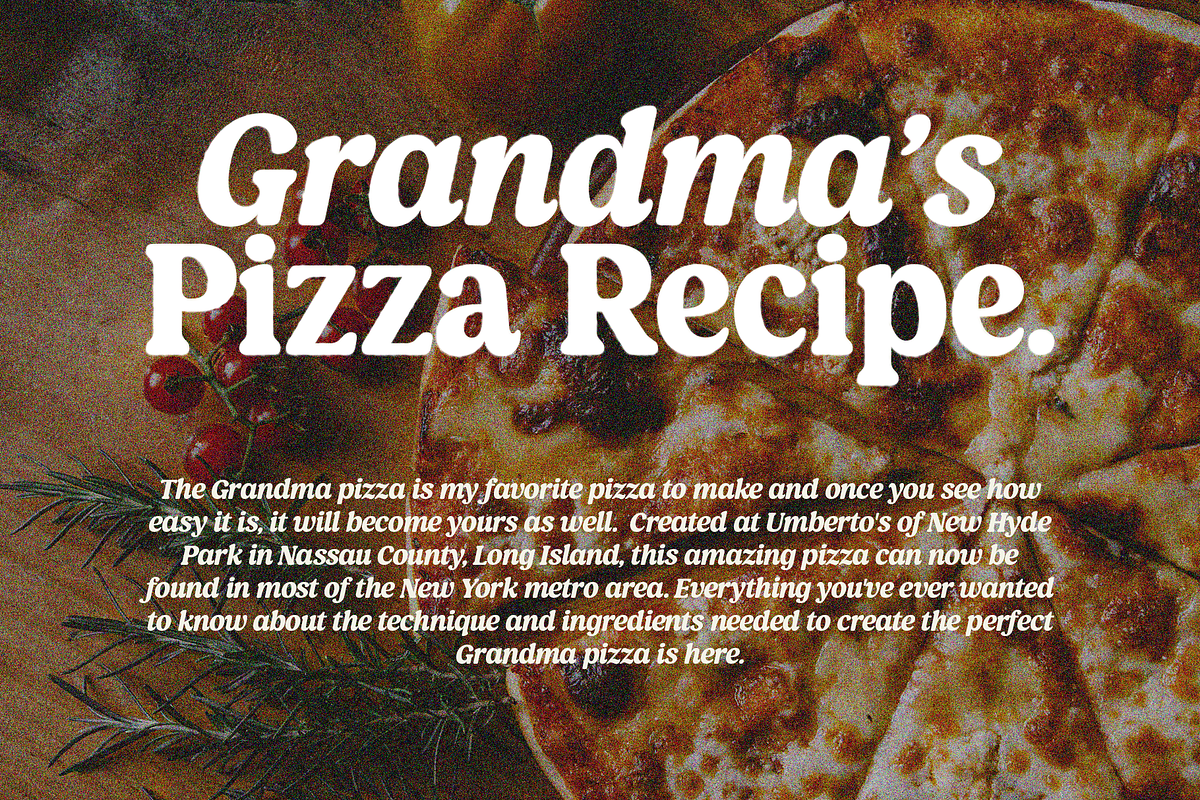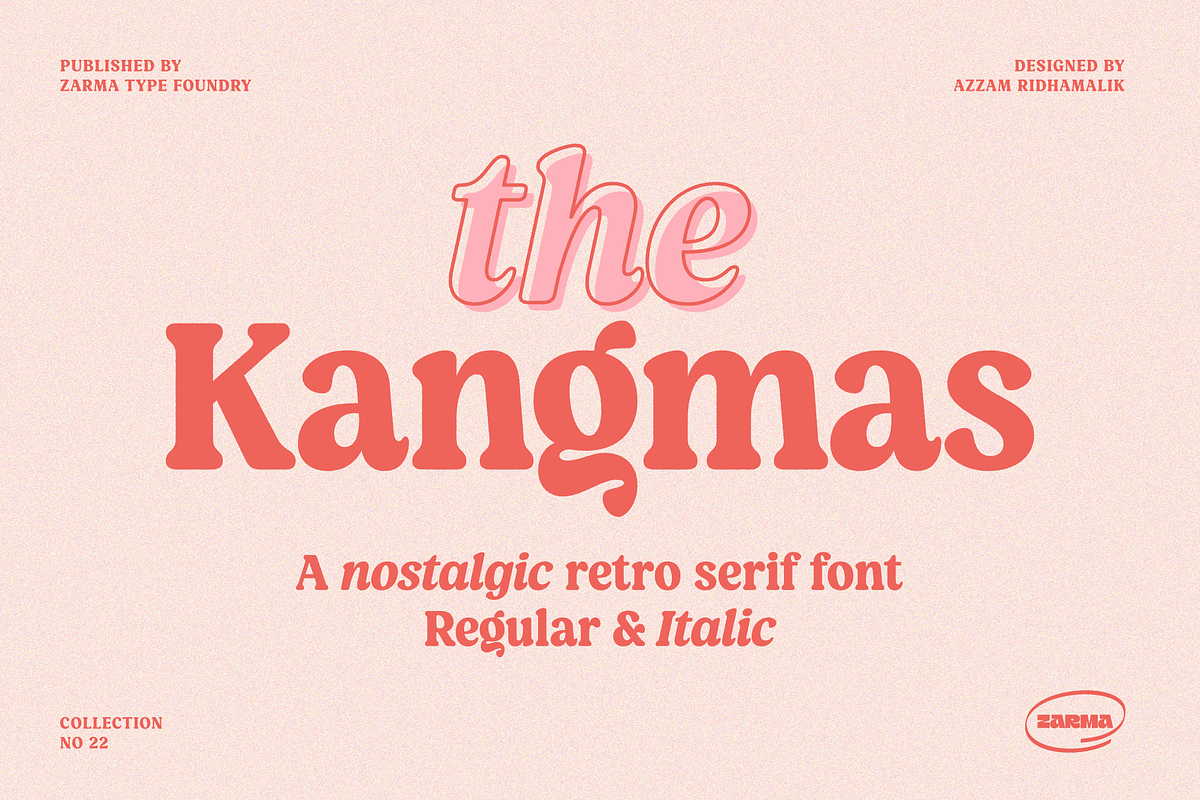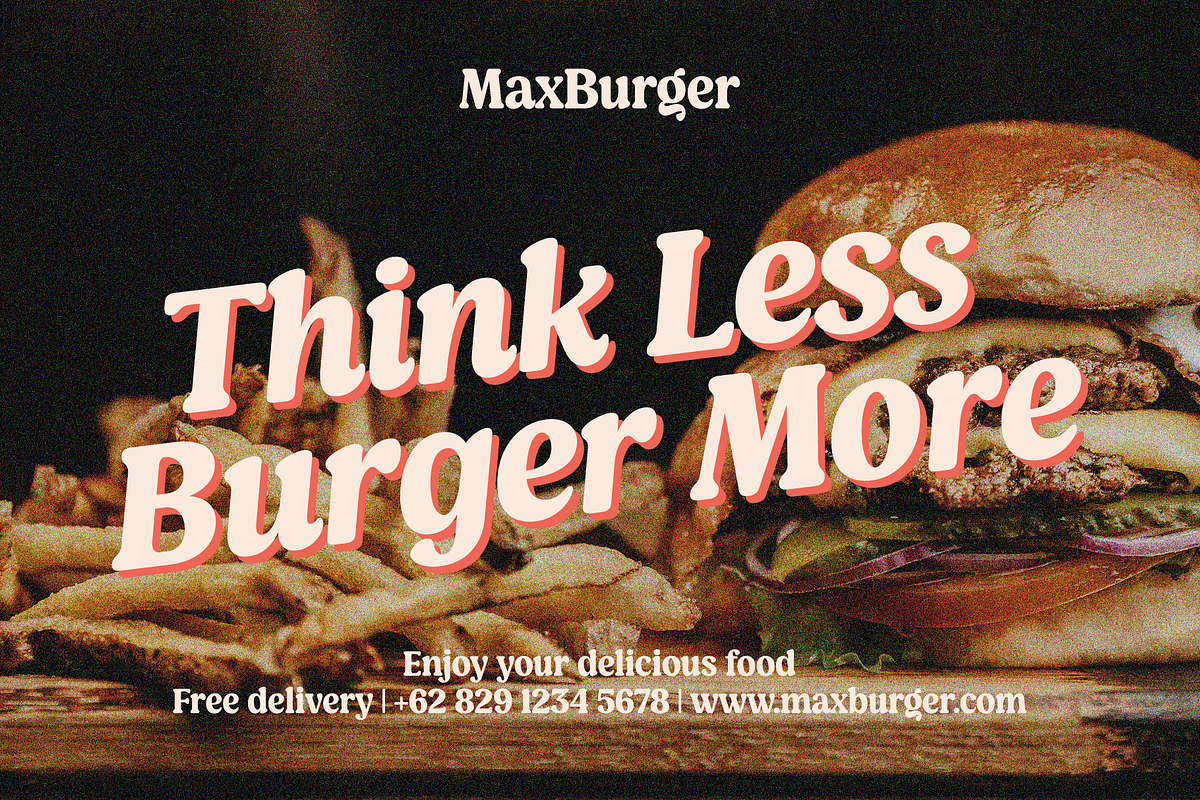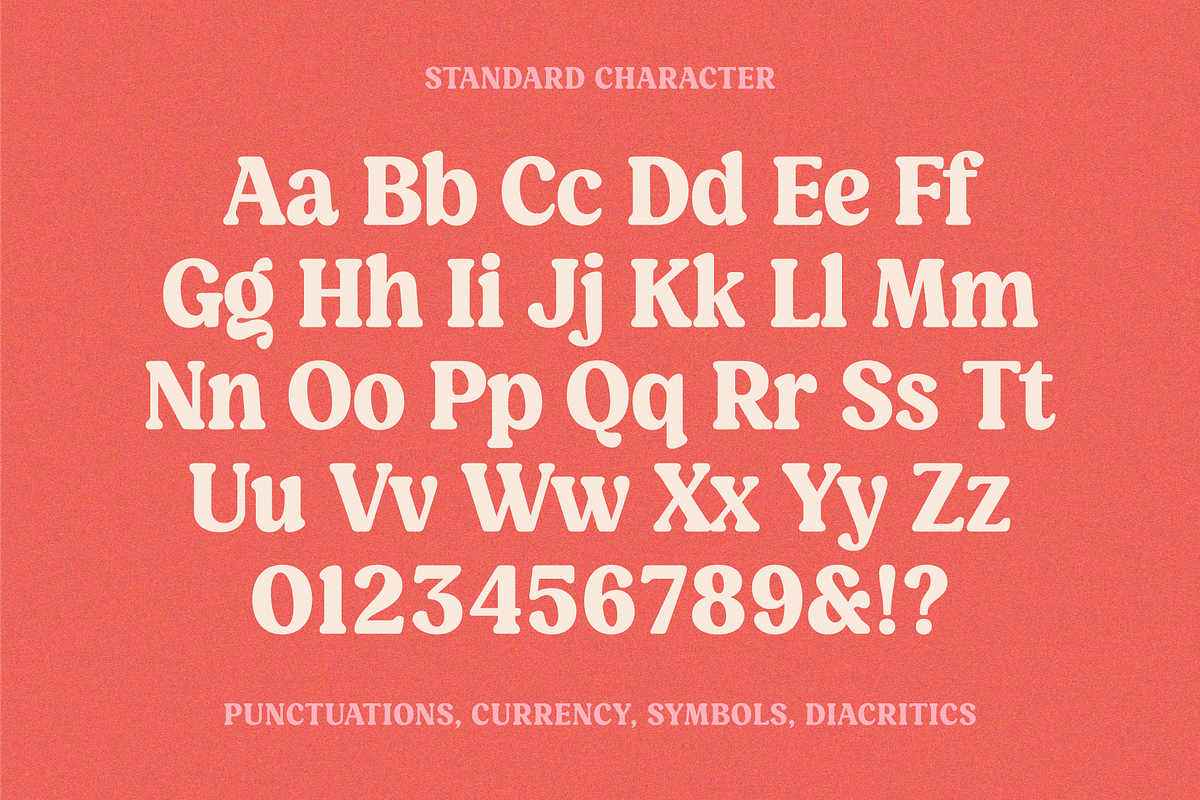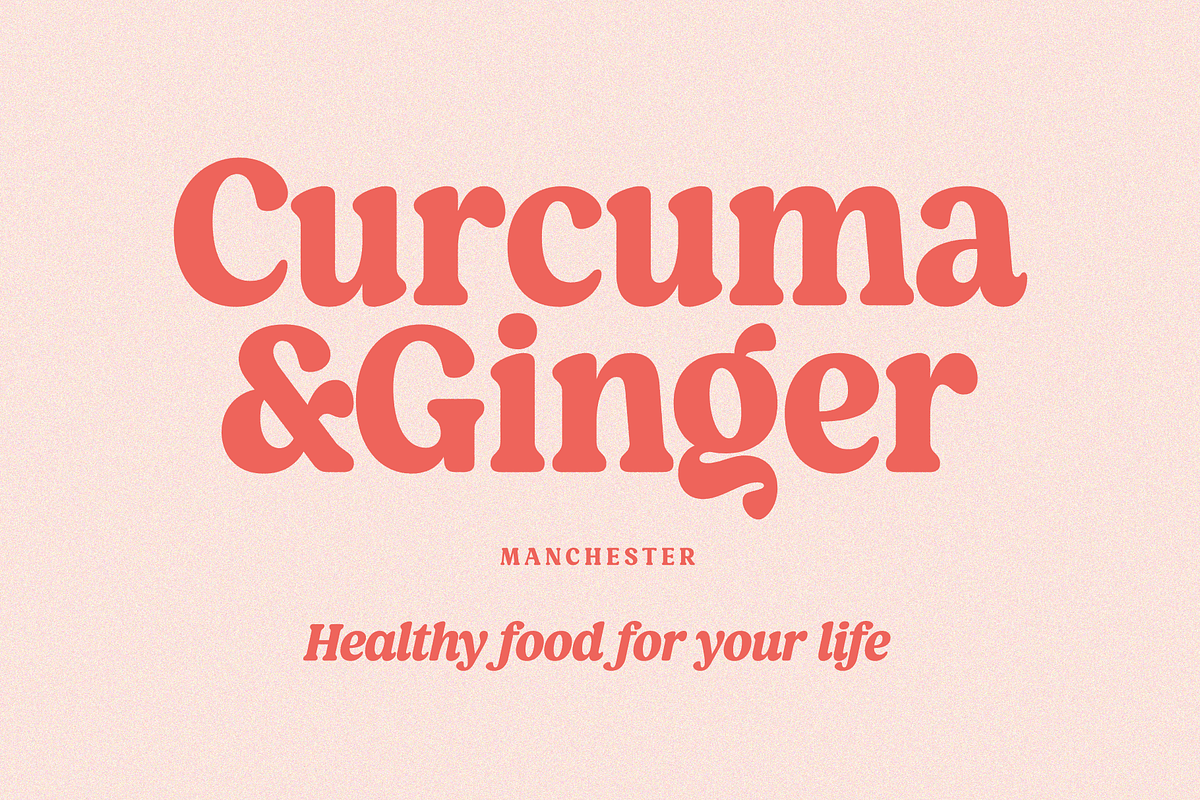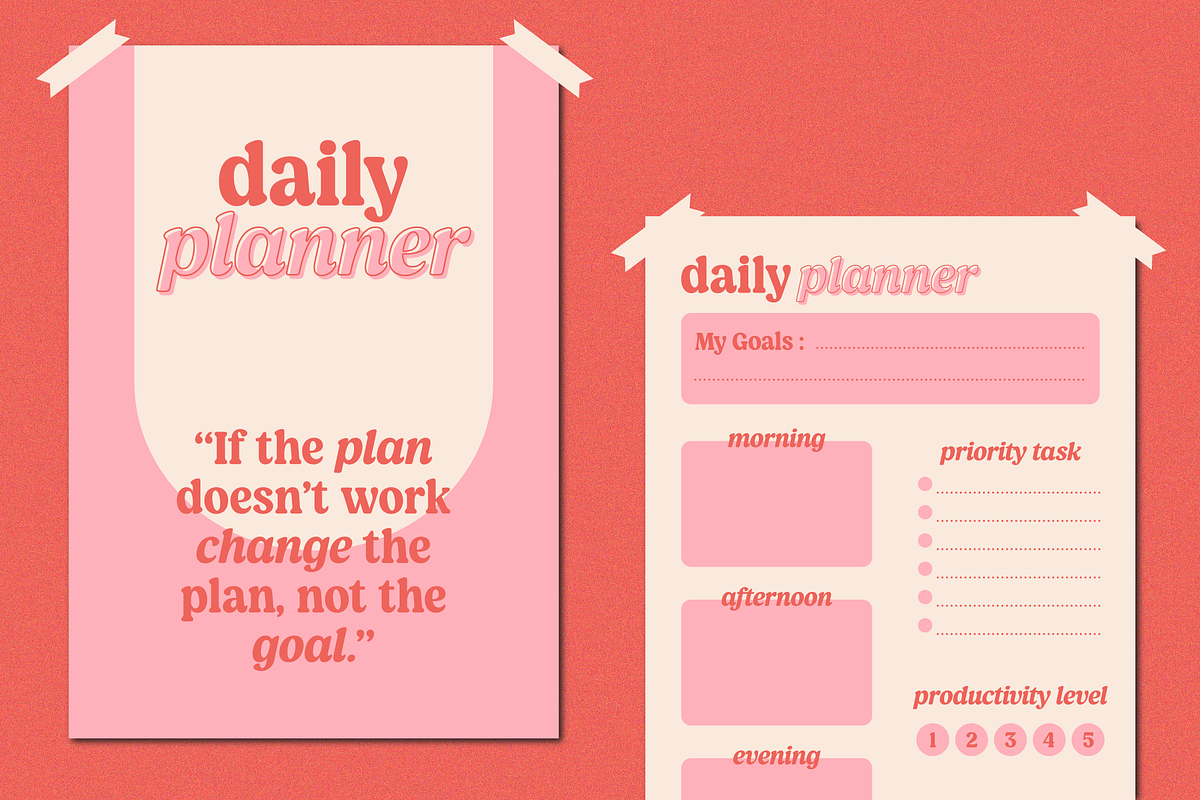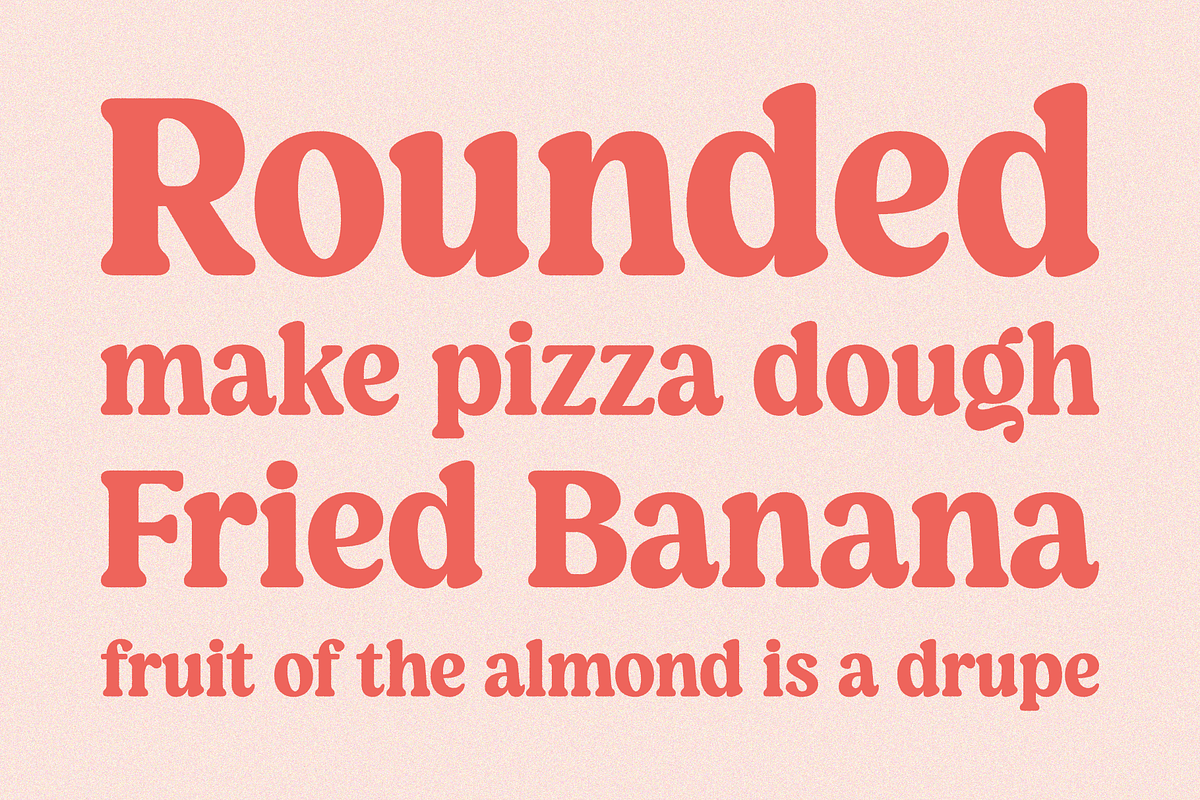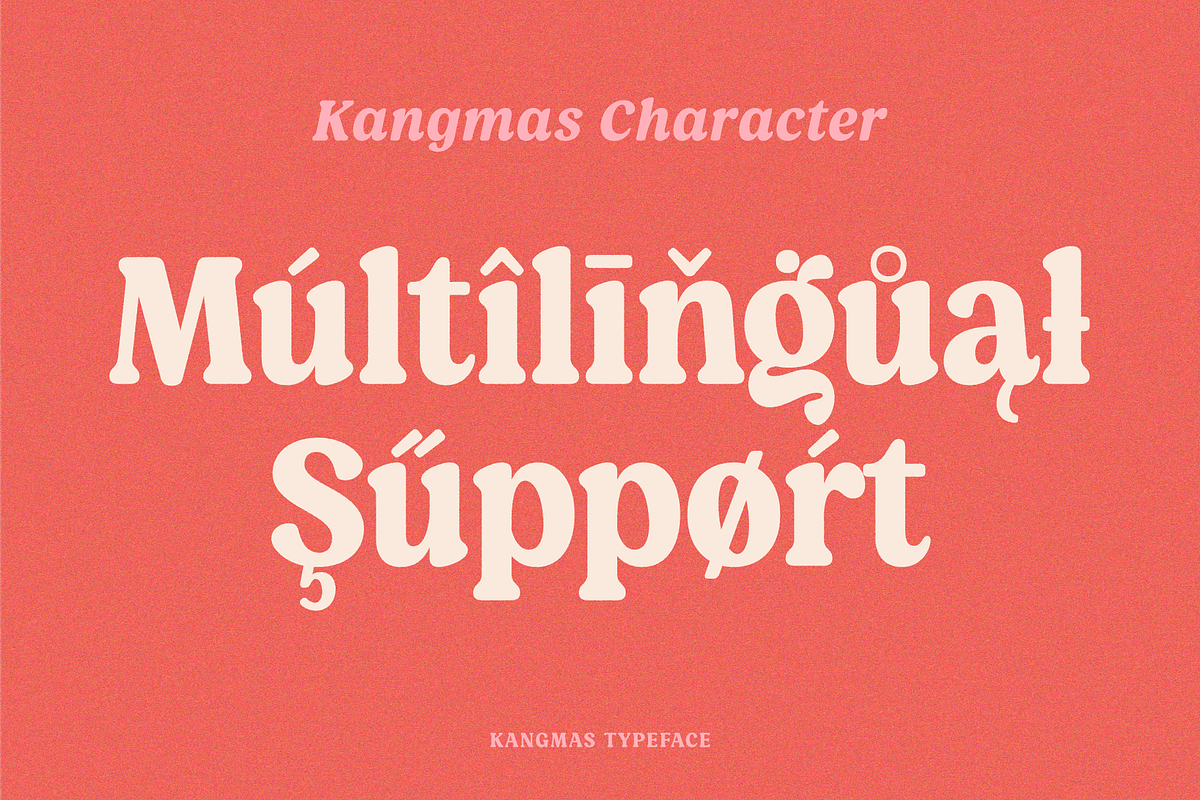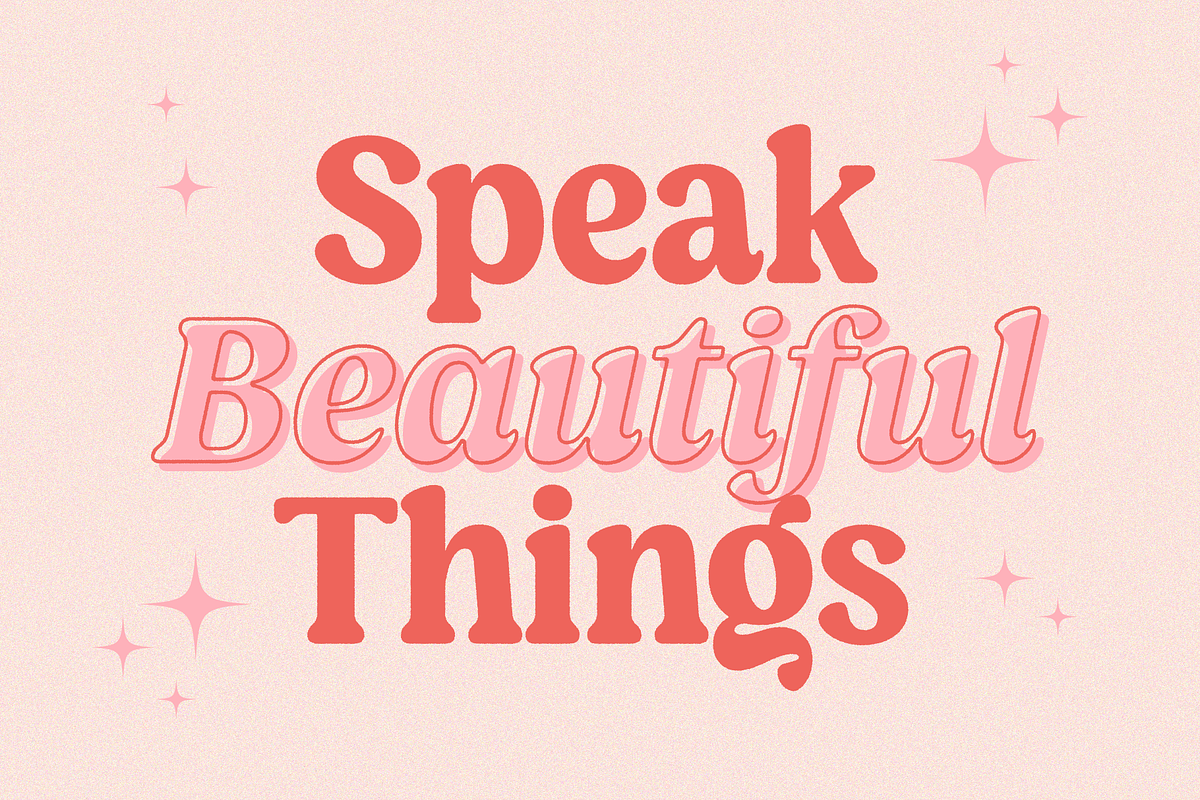
Kangmas - Nostalgic Retro Serif Font
Introducing Kangmas, a nostalgic retro serif font with regular and true italic style. This font has rounded serif inspired by all the retro aesthetics making a comeback and the awesome classic "Cooper Black" typeface, but includes more modern letter shapes in it. The combination make it has a nostalgic retro vibes and also gives modern looks at the same time.